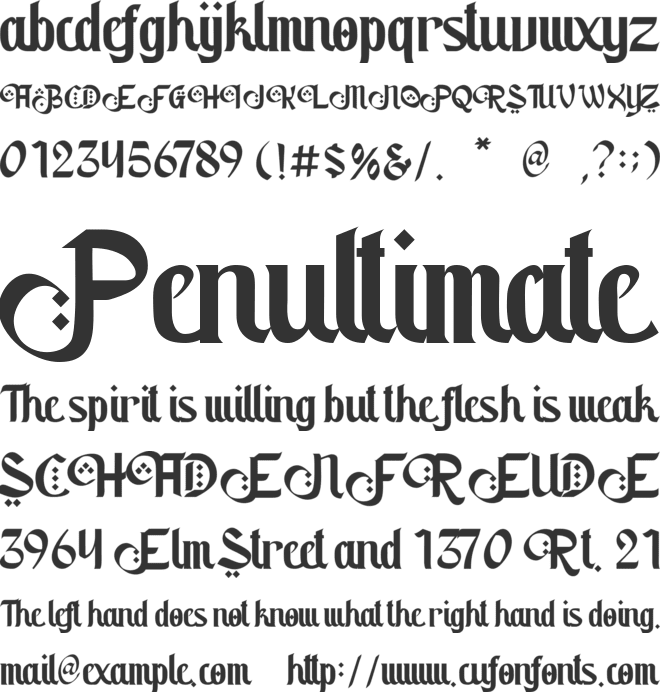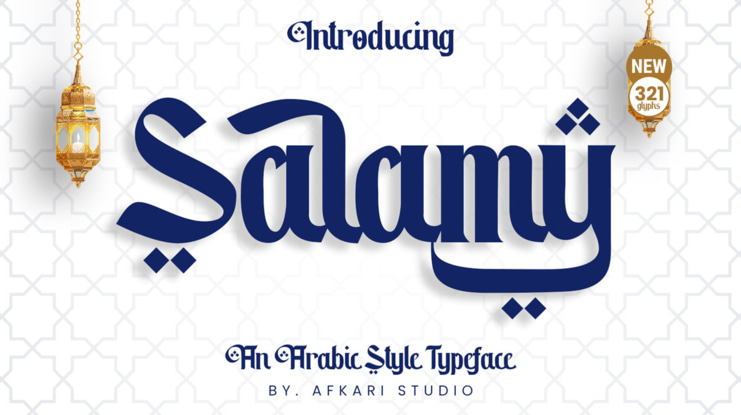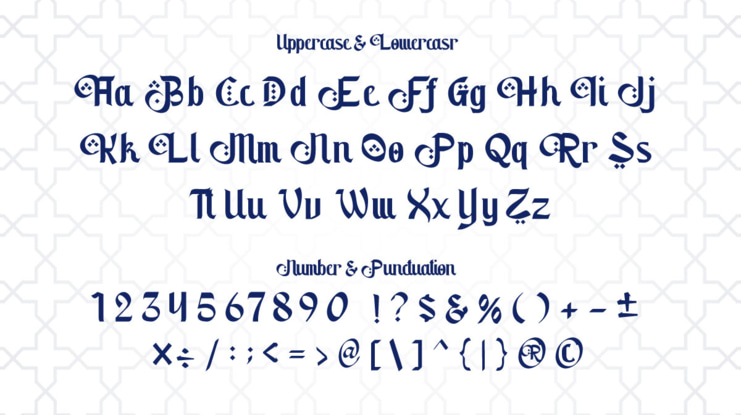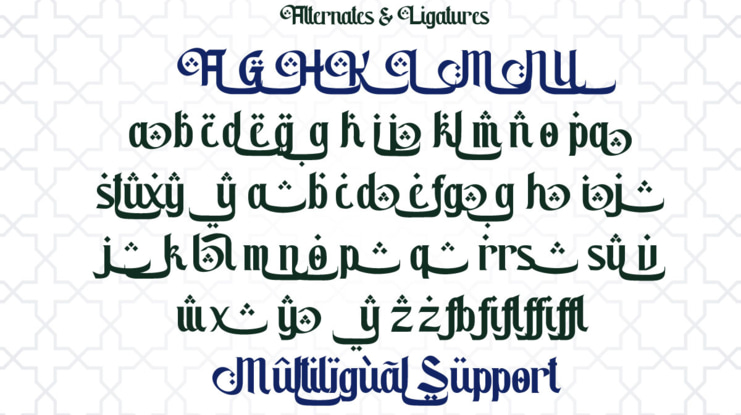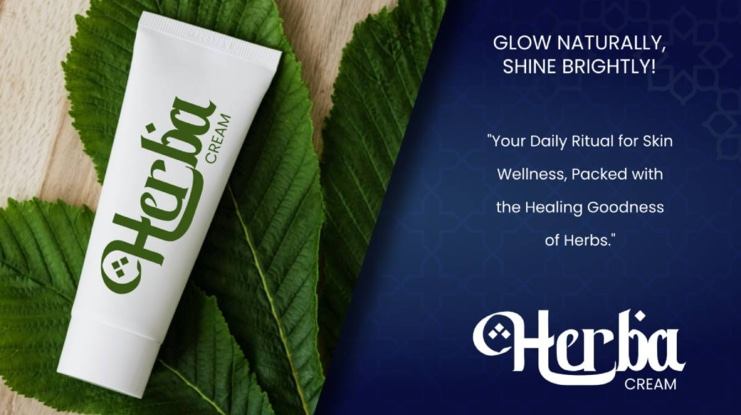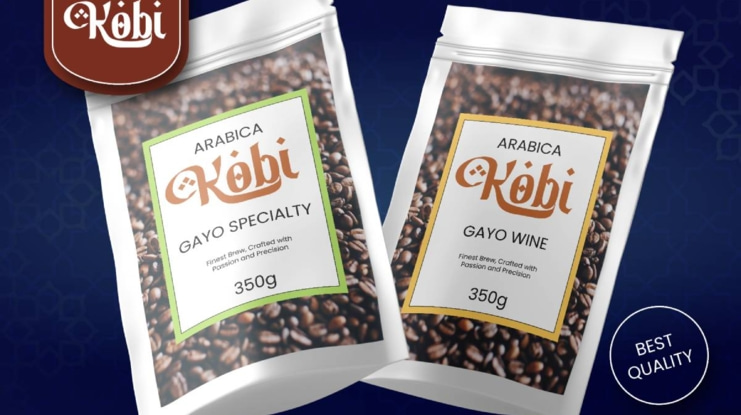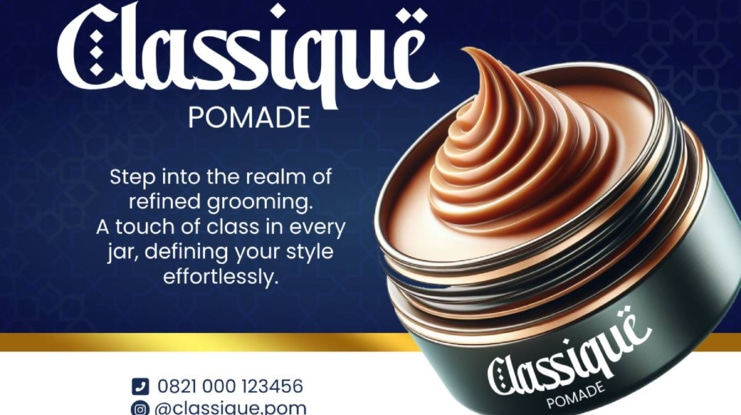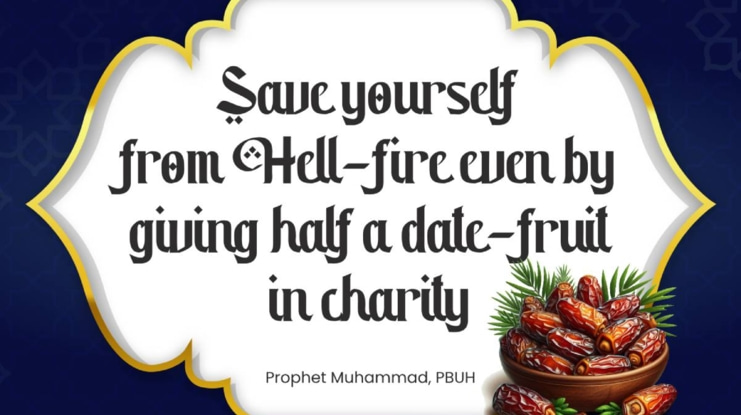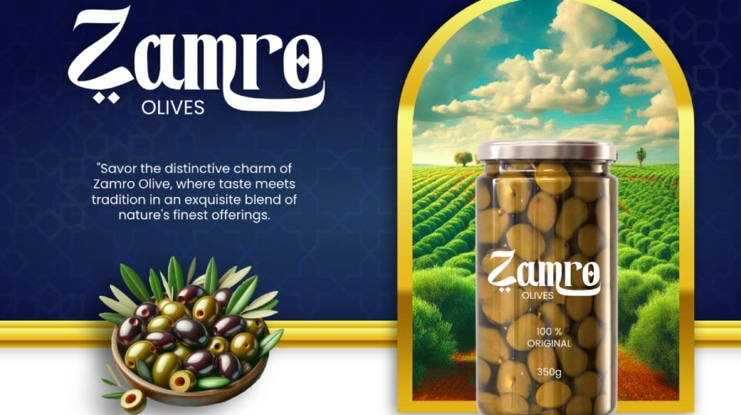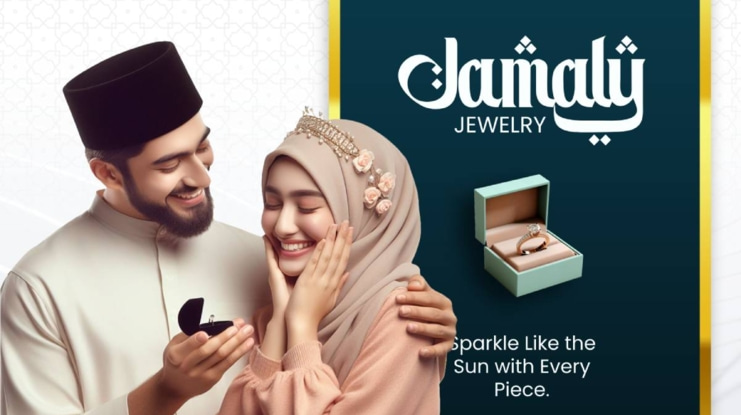
Salamy Arabic Style Font
Salamy - An Arabic Style Typeface
Introducing Salamy, a captivating typeface that embodies the timeless beauty of Arabic calligraphy, now reimagined for modern design projects. Dive into the graceful curves and intricate details of Salamy, meticulously crafted to infuse every text with the essence of Arabic elegance. This exquisite font isn't just a typographic choice; it's a design voyage that seamlessly blends tradition and contemporary style to elevate your creative endeavors.
Salamy Arabic Style font preview